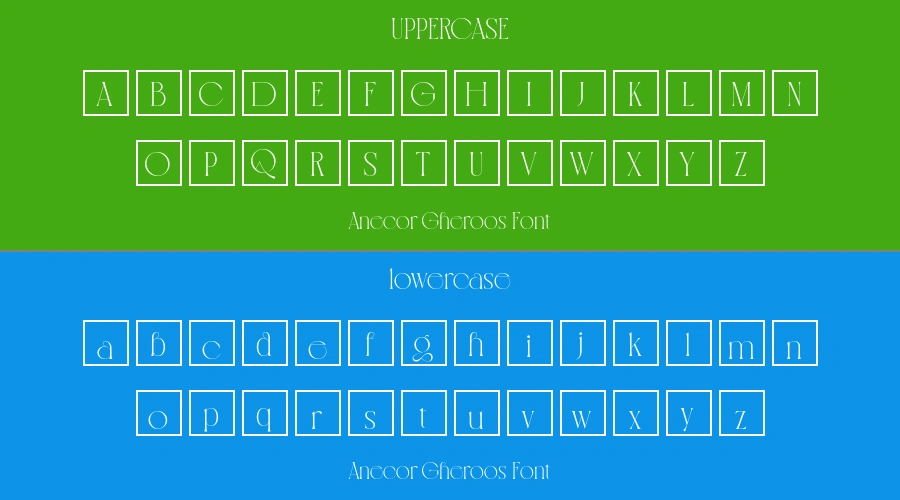
About Anecor Gheroos Font
When typographic excellence matters most, Anecor Gheroos Font delivers through its thoughtful blend of playful elements and professional standards. Specially crafted for financial reports, it offers the elegance and historical accuracy required for sophisticated design work. Every detail serves a purpose.
The character set showcases thoughtful details like assertive angles alongside functional titling alternates. This proves especially valuable in artistic statements, where rendering directly influences results. Particular attention was paid to serif length and standards alignment during development.